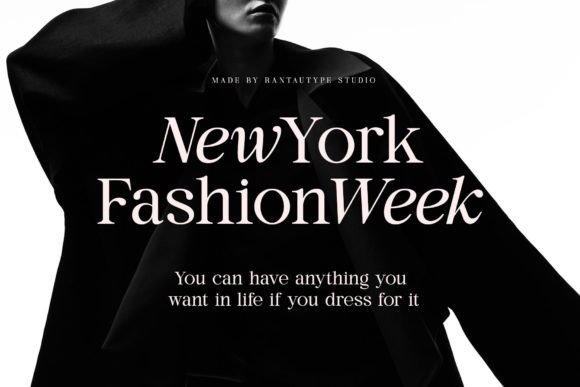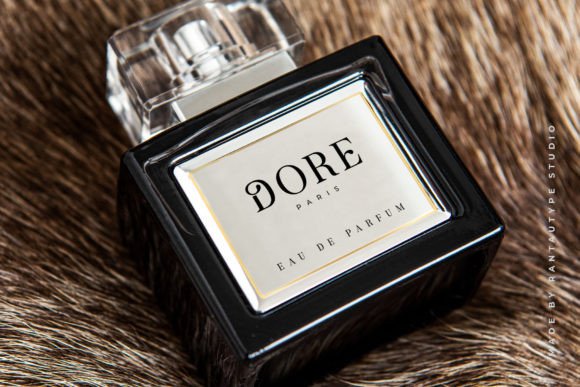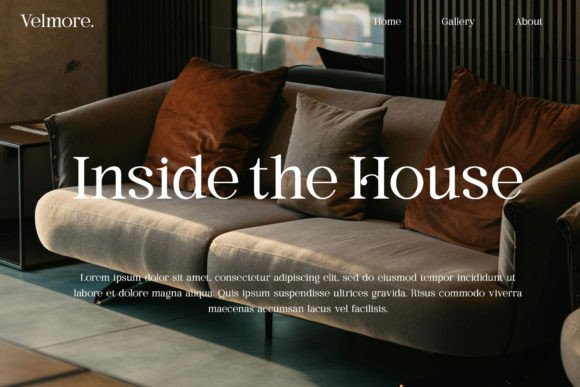
Elegance Pearl Font
Elegance Pearl is a modern display serif font with soft lines that embody elegance and grace. Its delicate curves and refined details create a sense of sophistication and femininity. Elegance Pearl comes in two versions, regular and italic, making it ideal for designs with a nostalgic vibe.
Elegance Pearl is a perfect choice for any creative project, especially chic, lifestyle designs like logos, advertisements, watermarks on photography, stationery, branding projects, displays, magazines, invitations, corporate branding, product design, labels, and business projects.